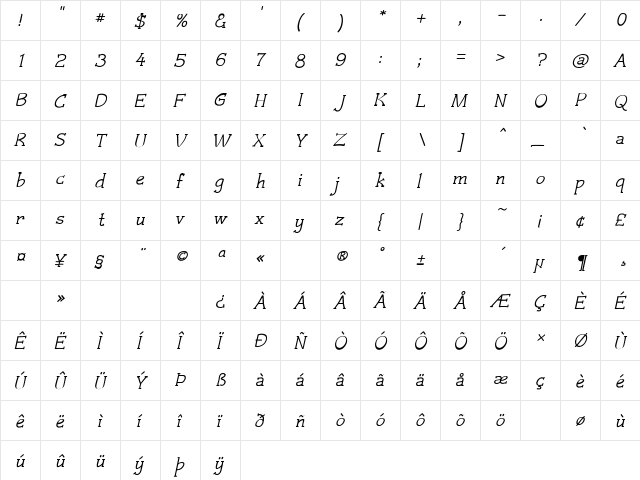
Czaristite Bold Italic
Design Context for Czaristite Typeface
Czaristite offers clean, dependable letterforms without strong stylistic allegiance, making it a practical choice for designers who need flexibility. The slanted form adds forward momentum and visual energy. The heavy weight commands attention and anchors typographic hierarchies.
Pro Tip: Try Czaristite for annotation and caption copy alongside an upright companion — the contrast in angle creates a dynamic but ordered typographic system.